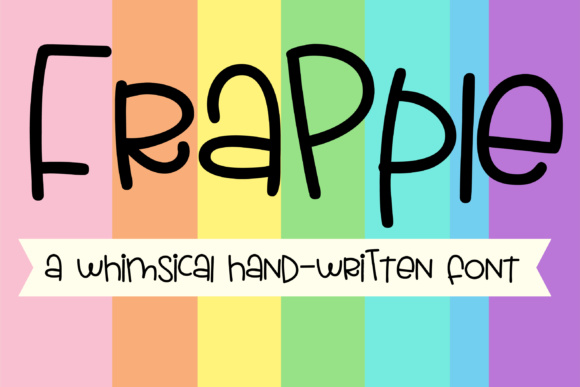
Frapple Font: A Whimsical Hand-Written Font for Creative Expression
The world of typography is vast and exciting, with numerous fonts available to help convey messages, express emotions, and add personality to written content. Among these, the Frapple Font stands out as a unique and creative option, perfect for those looking to add a touch of whimsy to their writing. This very whimsical hand-written font has two cases that can be mixed up as you type for creative looks, making it an excellent choice for designers, writers, and artists seeking to make a statement.
What is Frapple Font?
Frapple Font is a hand-written font designed to bring a playful and carefree vibe to any written content. Its whimsical nature makes it perfect for creative projects, such as illustrations, comics, and graphic novels, as well as for adding a personal touch to digital and print materials.
One of the standout features of Frapple Font is its dual-case capability. This means that the font comes with two distinct cases that can be mixed and matched while typing, allowing users to create visually appealing and dynamic text. The font’s hand-written style gives it a personal and organic feel, making it ideal for projects that require a touch of warmth and personality.
The Many Uses of Frapple Font
Frapple Font’s versatility makes it suitable for a wide range of applications. Here are some of the many uses of this unique font:
- Digital Art and Illustrations: Frapple Font can add a playful and imaginative touch to digital art, making it perfect for comic books, graphic novels, and illustrations.
- Branding and Marketing: The font’s whimsical nature makes it an excellent choice for brands looking to establish a friendly and approachable image.
- Social Media Content: Frapple Font can help social media content stand out, making it ideal for posts, captions, and stories.
- Web Design: The font can add a personal touch to website designs, making them more engaging and memorable.
- Print Materials: Frapple Font is suitable for various print materials, such as posters, flyers, brochures, and business cards.
The Benefits of Using Frapple Font
Using Frapple Font offers several benefits, including:
- Unique and Creative Expression: Frapple Font allows users to express themselves in a unique and creative way, adding personality to their written content.
- Improved Readability: The font’s hand-written style can make text more readable, especially for younger audiences.
- Flexibility: Frapple Font’s dual-case capability provides flexibility, allowing users to mix and match cases for creative and visually appealing text.
- Time-Saving: The font’s versatility saves time, as users can easily create engaging content without having to design from scratch.
Tips for Using Frapple Font
To get the most out of Frapple Font, consider the following tips:
- Experiment with Case Mixing: Take advantage of the font’s dual-case capability by mixing and matching cases to create visually appealing text.
- Pair with Other Fonts: Combine Frapple Font with other fonts to create contrast and add depth to written content.
- Adjust Font Size and Color: Experiment with different font sizes and colors to add emphasis and create visual hierarchy.
- Keep it Legible: Ensure that the text remains legible, especially when using the font’s more decorative elements.
Frapple Font is a unique and creative hand-written font that offers a playful and whimsical touch to written content. Its dual-case capability, versatility, and flexibility make it an excellent choice for designers, writers, and artists seeking to express themselves in a creative and imaginative way. By following the tips outlined above, users can unlock the full potential of Frapple Font and add a personal touch to their digital and print materials.